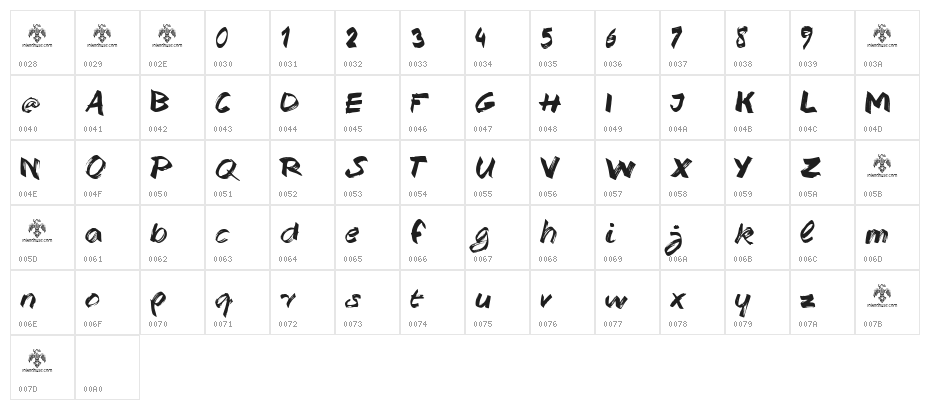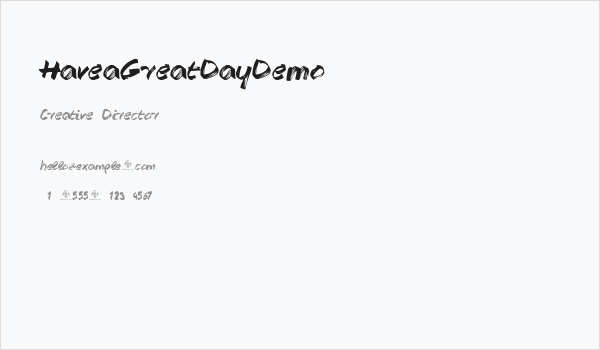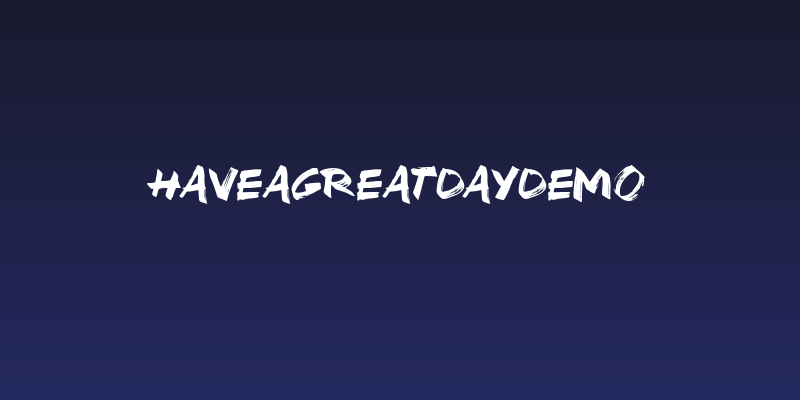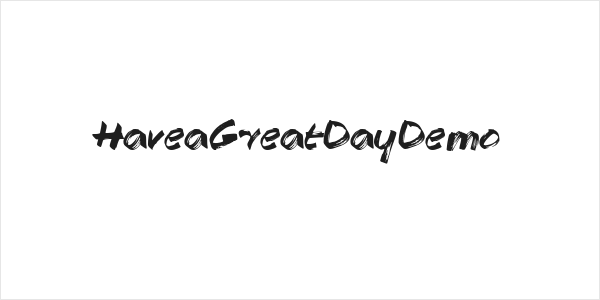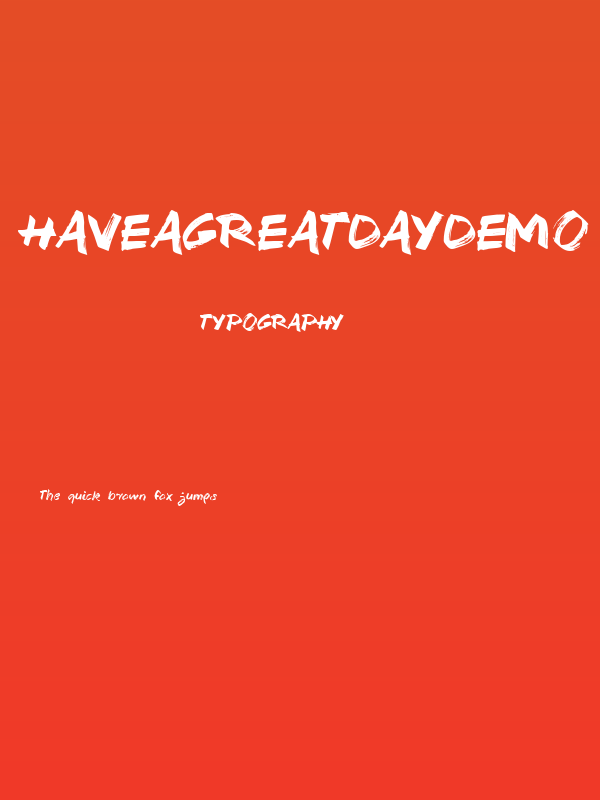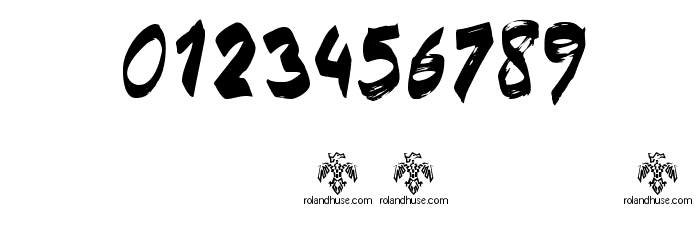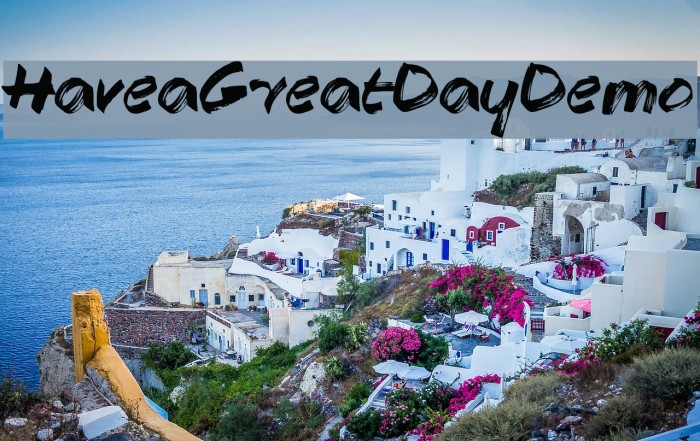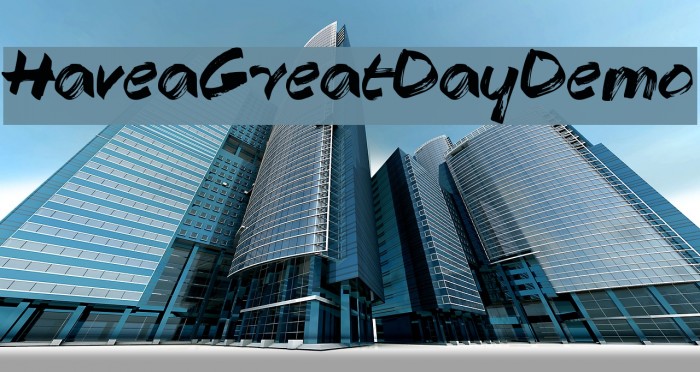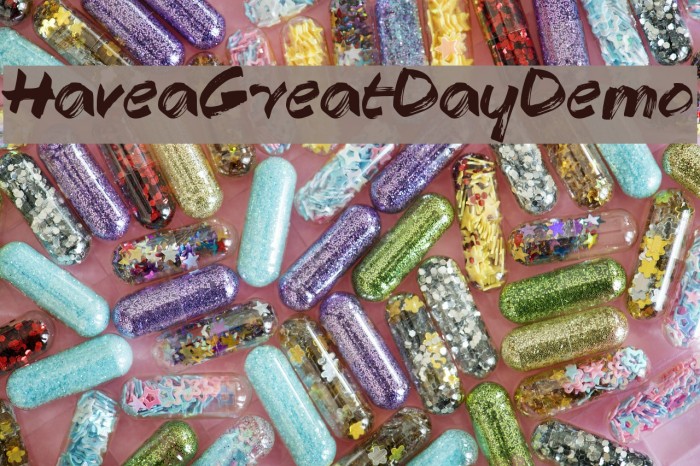
HaveaGreatDayDemo Font
HaveaGreatDayDemo Description
This font features a bold and expressive brush style, characterized by its dynamic strokes and energetic appearance. The letters are crafted with a hand-painted effect, giving them a lively and artistic feel. The uppercase letters are bold and impactful, while the lowercase letters maintain a consistent flow with a slightly more delicate touch. The numbers and special characters follow the same brush-like aesthetic, ensuring a cohesive look across all elements. This font's unique style makes it stand out, perfect for projects that require a personal and creative touch.
| Proposed Projects | Ideal for posters, branding, artistic projects, and any design requiring a bold, creative flair. |